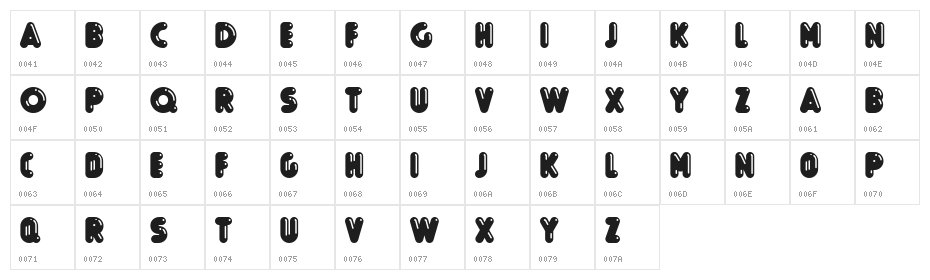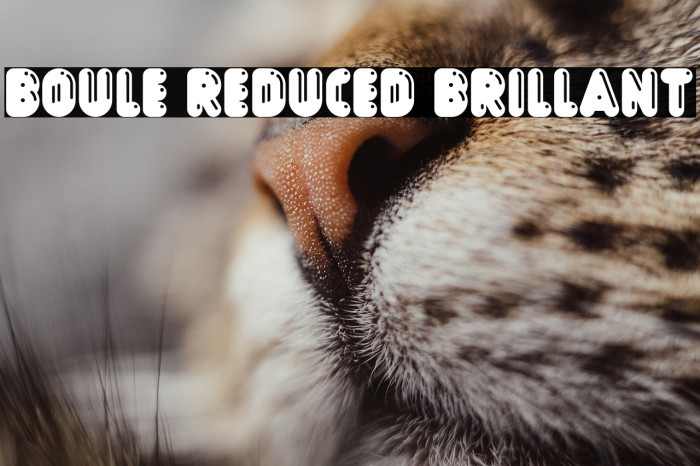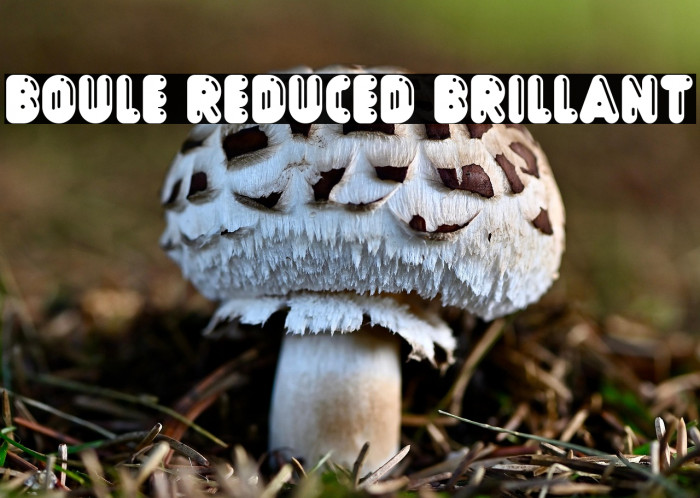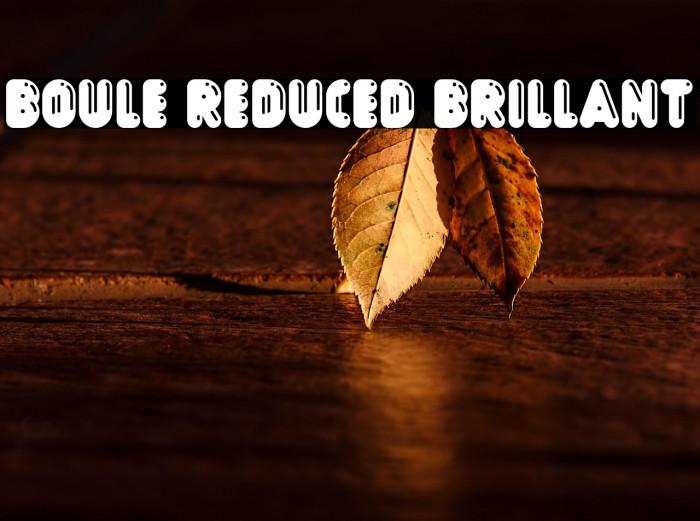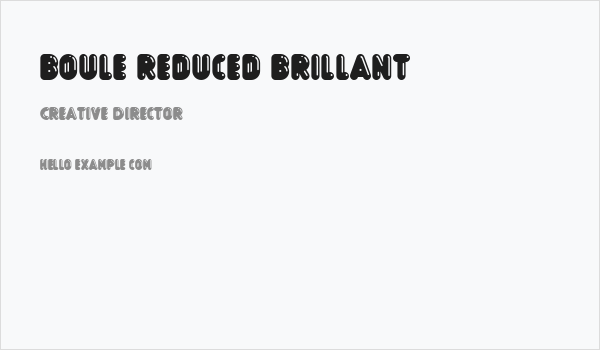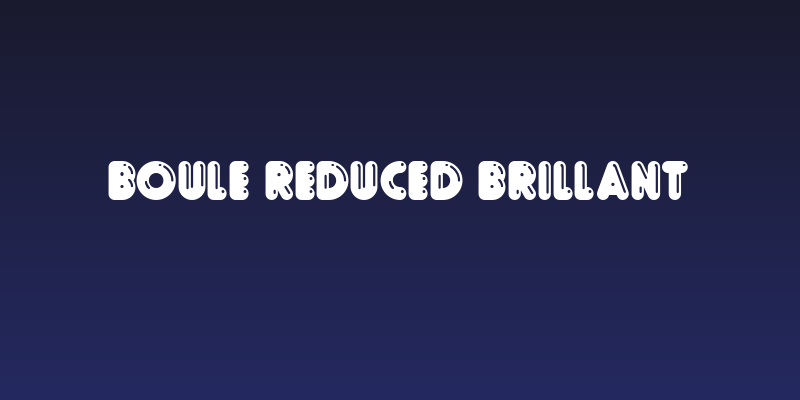
Boule Reduced Brillant Font
Boule Reduced Brillant Description
This playful and bold font features a unique bubble-like design with rounded edges and circular cutouts, giving it a whimsical and eye-catching appearance. The letters are uniformly thick, creating a strong visual impact, while the circular accents add a touch of fun and creativity. The font is highly decorative, making it ideal for projects that require a standout display typeface. Its boldness ensures readability even at smaller sizes, while the playful design makes it suitable for a variety of creative applications.